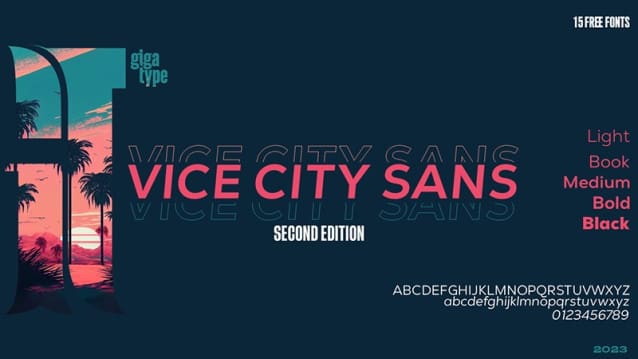
GT Vice City Sans Font Family
GT Vice City Sans Font Family is a modern sans serif font family with 15 weights. You can use it to convey the perfect balance between modern and pleasant design. This font is suitable for trendy packaging label designs, unique logos and branding, poster designs, fashion, etc.